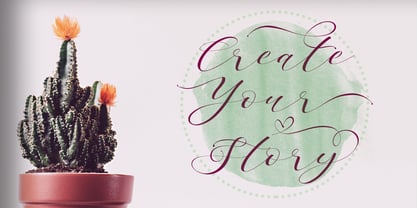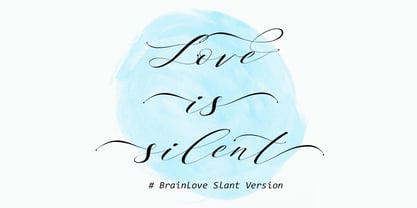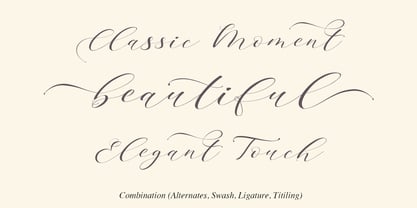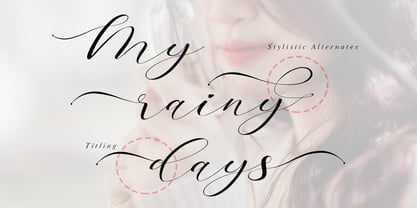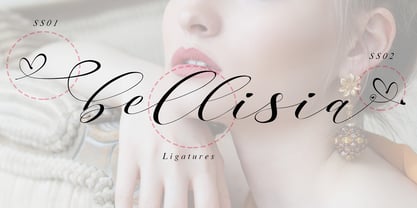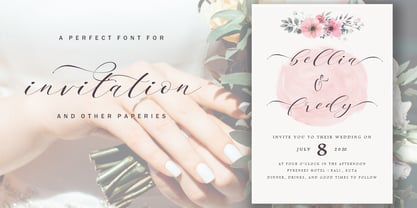
Brainlove Font
This Brainlove Font is perfect for educational technology branding, neuroscience research materials, cognitive learning applications, brain training software, psychological wellness centers, mental health awareness campaigns, innovative learning platforms, intellectual development programs, mind enhancement products, and smart thinking communications.
What makes this Brainlove Font exciting is its cognitive sophistication that captures the passionate intelligence and neural connectivity of brain-centered innovation and intellectual excellence. The font features innovative letterforms with neural characteristics that convey mental agility, cognitive passion, and intellectual creativity. Its brain-inspired character and love-driven design make it ideal for brands seeking to communicate intellectual passion, cognitive excellence, and mental innovation in education and neuroscience markets.
The Brainlove Font family includes light, regular, medium, and bold weights with neural alternates, cognitive variants, and intellectual flourishes. This comprehensive brain-focused font family provides designers with intelligent typographic tools to create cognitive compositions while maintaining the neural character essential for educational technology and mental wellness brand communications.
Educational technology companies and neuroscience organizations consistently choose Brainlove Font Free Download for projects requiring authentic cognitive appeal and intellectual credibility. This font's distinctive neural character perfectly captures the brain excellence and intellectual passion that resonate with audiences who appreciate cognitive development, mental innovation, and brands that embody intelligent learning and neural advancement.
The intelligent construction of Brainlove Font showcases creatively designed letterforms with cognitive proportions that ensure exceptional mental clarity across all educational applications. Its neural appearance and intellectual character create memorable impressions while maintaining the readability necessary for effective cognitive communication and brain development materials.
Professional designers appreciate how Brainlove Font brings immediate intellectual authenticity and cognitive innovation to brand communications. The font's brain-focused nature allows organizations to communicate mental excellence and intellectual passion while maintaining the professional quality necessary for effective positioning in educational technology and neuroscience markets.
The passionate appeal of Brainlove Font makes it particularly effective for brands emphasizing cognitive development, intellectual innovation, and mental wellness. Its neural character resonates strongly with audiences who appreciate brain science, educational technology, and brands that represent the passionate pursuit of intellectual excellence and cognitive advancement.
Whether developing platforms for cognitive learning or creating materials for neuroscience research, Brainlove Font Free Download provides the intelligent typographic foundation that brain-focused brands need to communicate their cognitive excellence, intellectual passion, and the neural innovation that defines educational technology and mental wellness achievement.